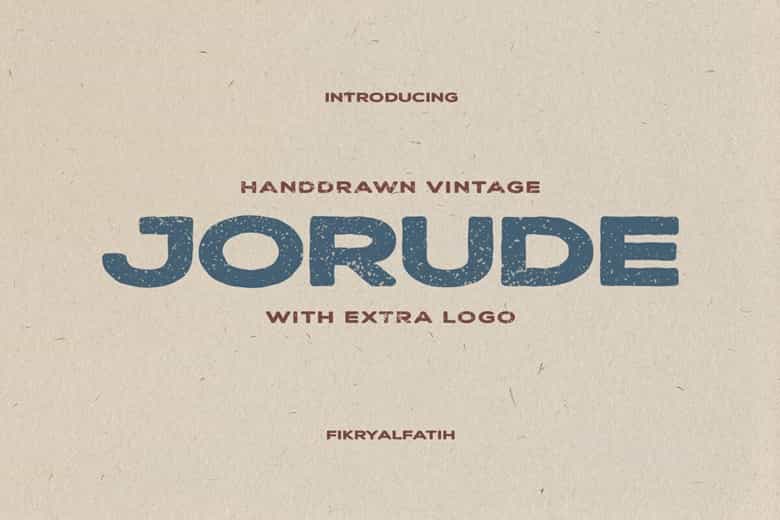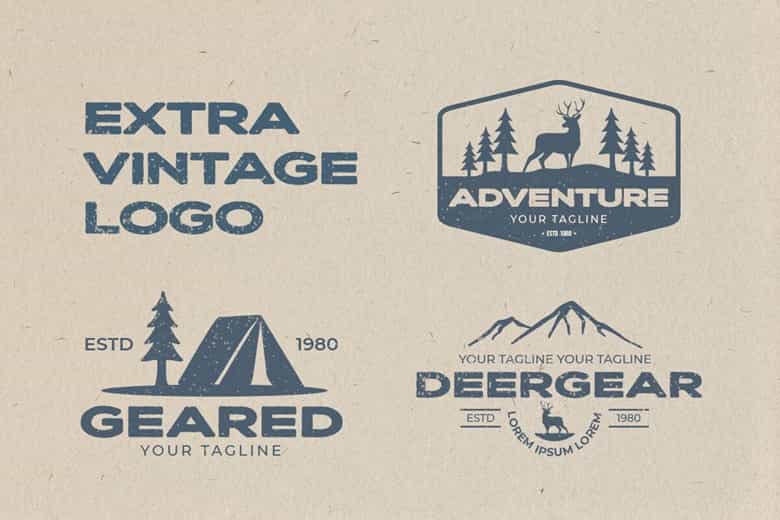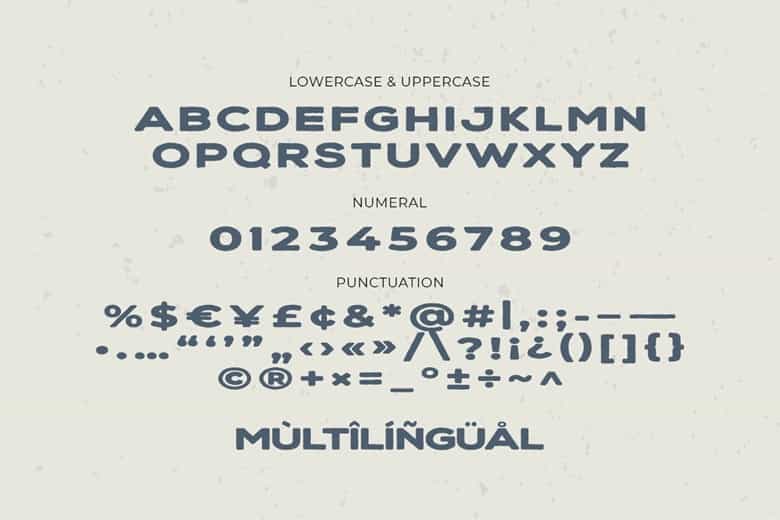
Discover Jorude Font, part of the Sans Serif Display Logos Vintage collection—a versatile and unique font perfect for adding a personal touch to your projects. Download it for free and enjoy crafting designs with style, from invitations to social media posts. This font is available exclusively for personal use, giving you the freedom to create without limits. Unlock your creativity with Jorude Font today!
This font is an organic hand drawn font which gives a contemporary look and feel with a hint of the past. Its wooden details and round shapes make it a unique piece, which will not stay unnoticed. Jorude is a product that can be used in a countless number of ways. Great to spice up your modern look designs, or indeed any designs, with a retro twist.